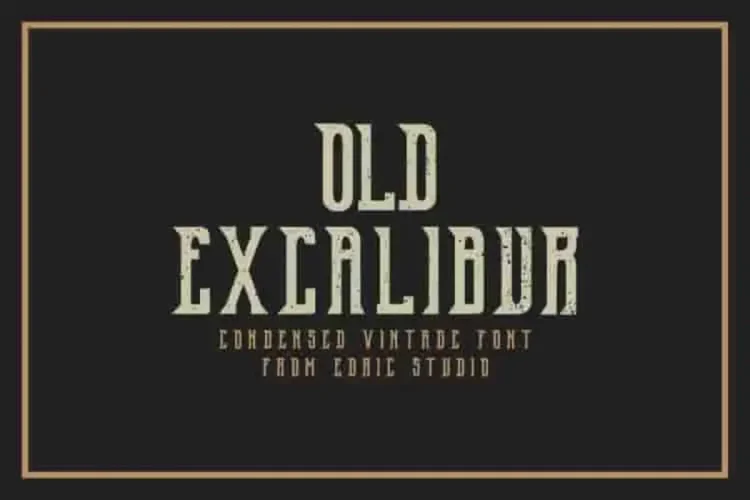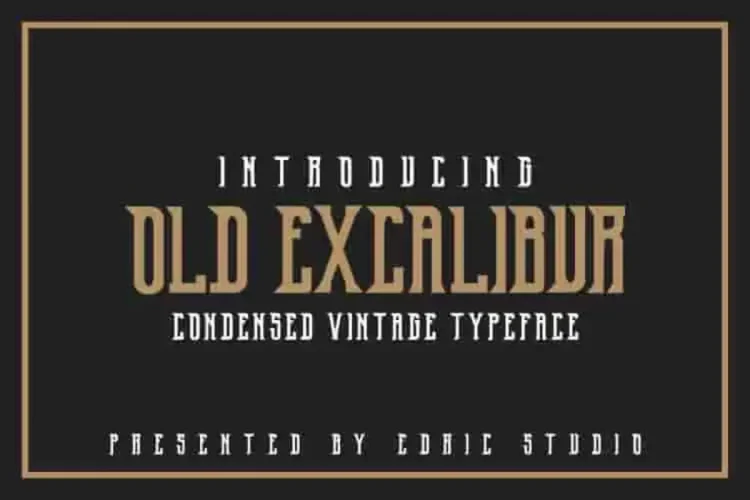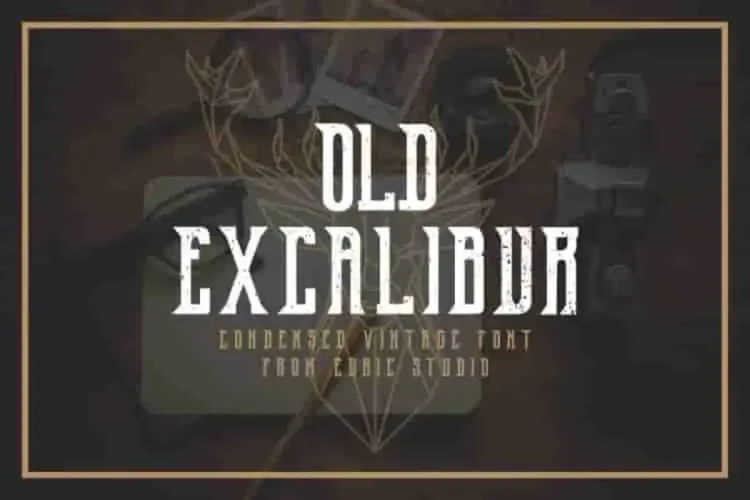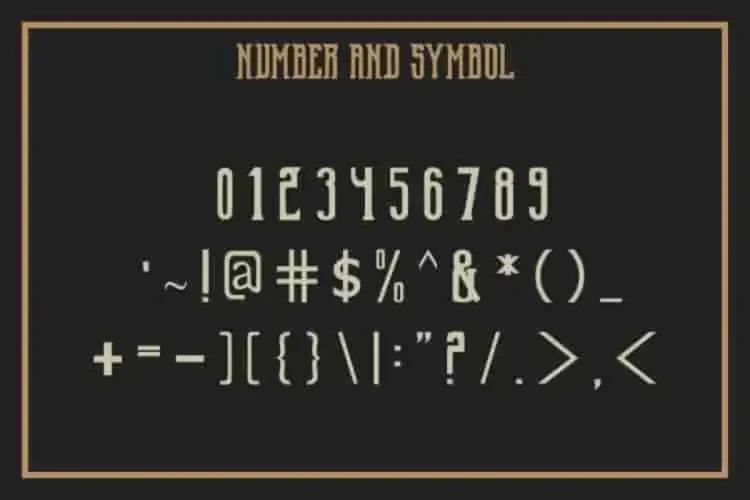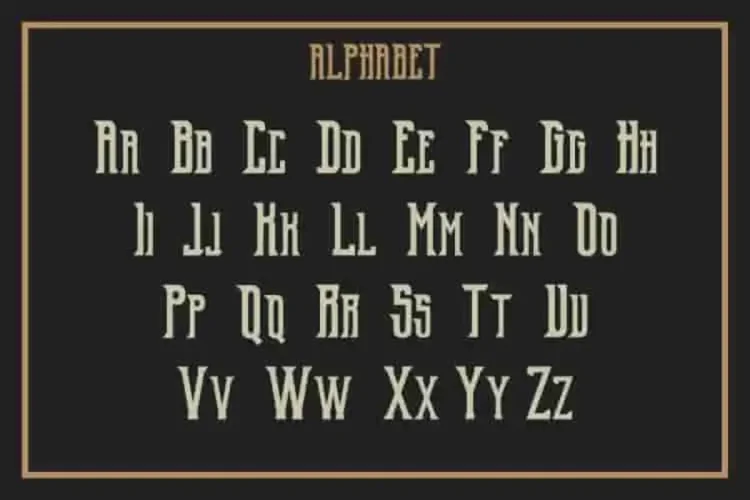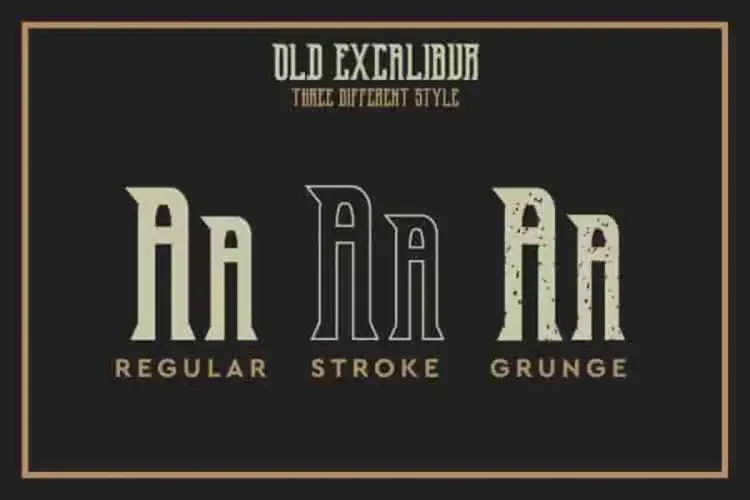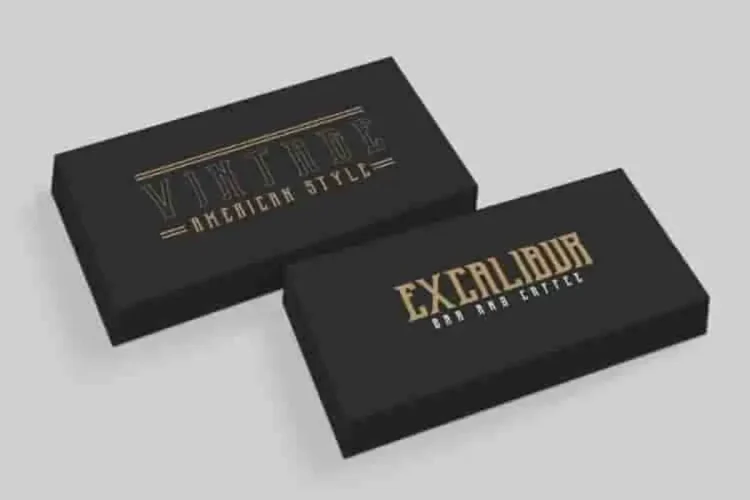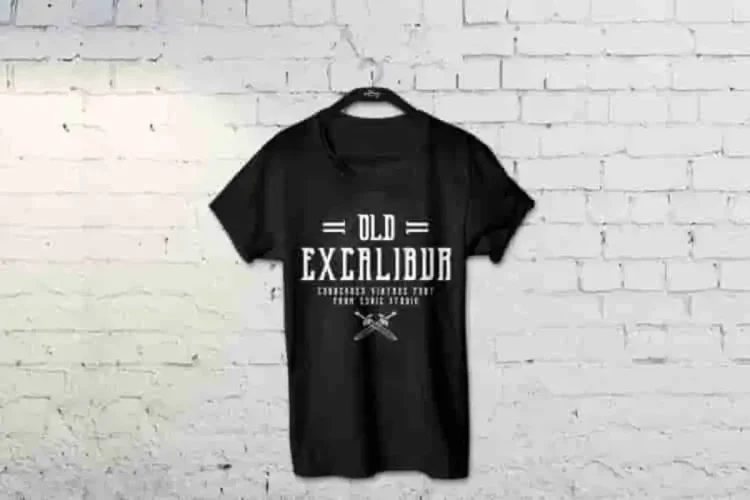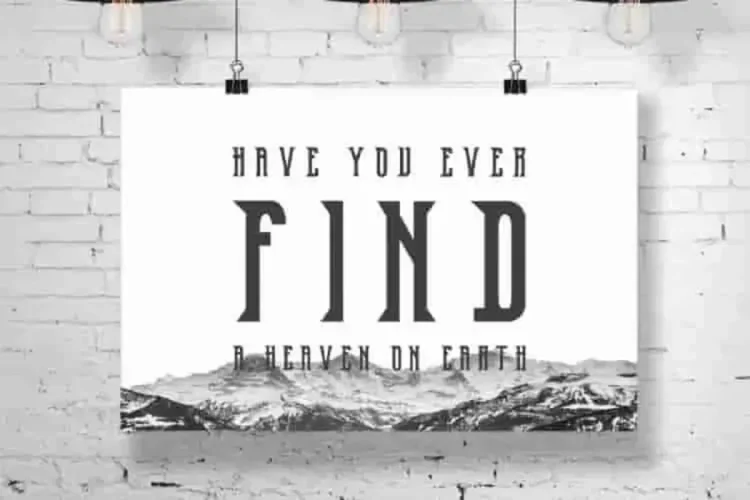
OldExcalibur Modern Sans Serif Fonts
Hi Everyone! Introducing our newest font : OldExcalibur! This is a new vintage sans typeface. It has a fresh, elegant, unique and stylish glyph. 🤩
Unlike typical sans serif fonts, OldExcalibur has character. Its crisp, medieval-inspired lines create a unique aesthetic that sets it apart from flat or overly minimalist typefaces. OldExcalibur blends heritage with boldness, making it ideal for brands seeking to appear established, confident, and stylish.
Whether you’re working on branding for a motorcycle shop, music label, café, or a restaurant, OldExcalibur will instantly add a classic yet modern aesthetic to your project. It’s also perfect for flyers, brochures, posters, and merchandise.
🤔What makes OldExcalibur truly stand out? It comes in four stunning styles:
• Regular – Clean and solid, perfect for logos and branding
• Stroke – A stylish outlined version for a striking presence
• Grunge – A distressed, edgy look with worn textures
• Vintage – A visual twin to Grunge, offering the same nostalgic flair with a slightly different texture emphasis
You’ll notice that while the Grunge and Vintage styles appear similar in demo previews, they offer subtle variations that let you tailor the vibe of your project with precision. This flexible range gives you the power to switch between bold and clean or rugged and retro in seconds.
😍Why Choose OldExcalibur?
• Unique Styling – It’s not just another modern sans serif. OldExcalibur has that distinctive, gritty edge that helps your message stand out.